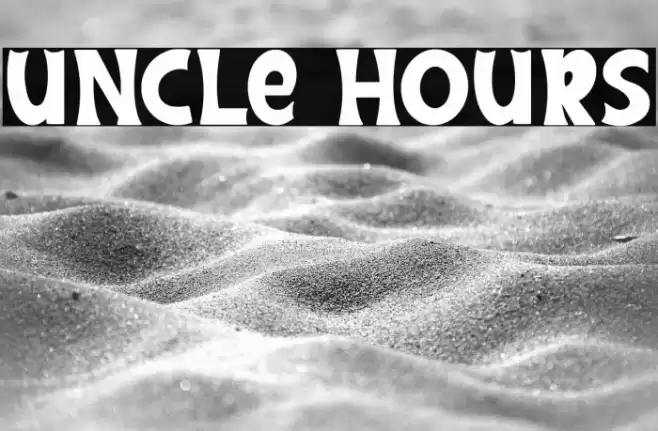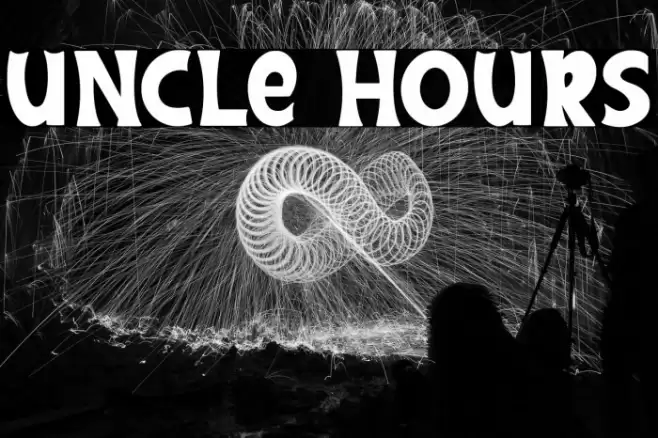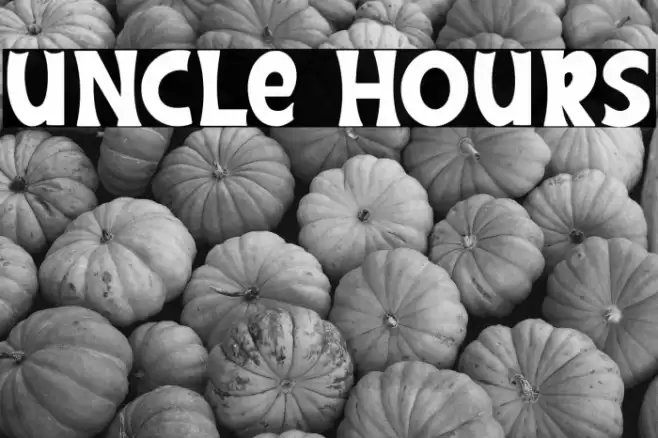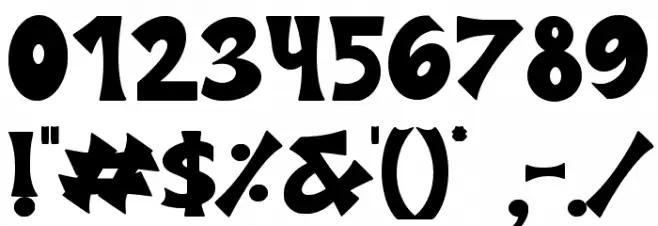
Uncle Hours Font
Uncle Hours Description
This font exhibits a bold and playful style with exaggerated, whimsical letterforms. The characters have a unique, hand-drawn appearance, featuring uneven strokes and a slightly irregular baseline that adds to its charm. The uppercase and lowercase letters maintain a consistent style, with the uppercase being more pronounced. Numbers and special characters follow the same playful aesthetic, making the font suitable for creative and informal designs. The overall look is dynamic and eye-catching, perfect for projects that require a touch of fun and creativity.
A bold, playful font with whimsical, hand-drawn letterforms from Regular fonts.
- Proposed Projects: Ideal for children's books, playful branding, party invitations, and creative posters.
- Overall Style: Playful, Whimsical